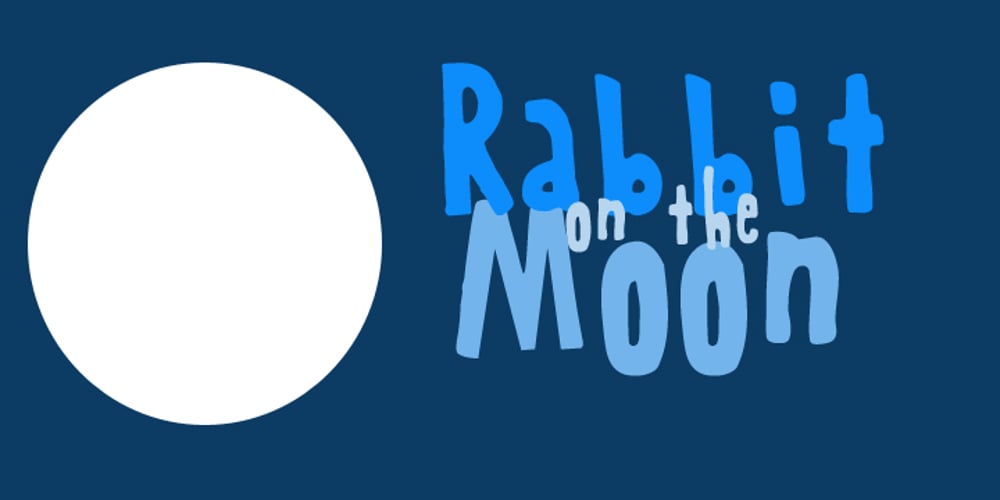
Rabbit On The Moon
Rabbit On The Moon font
Rabbit On The Moon Font Family was designed by David Kerkhoff and published by Hanoded. Rabbit On The Moon contains 3 styles and family package options. This font is ideal for cartoons, greeting cards and children’s books, as it has a happy ‘feel’ to it.